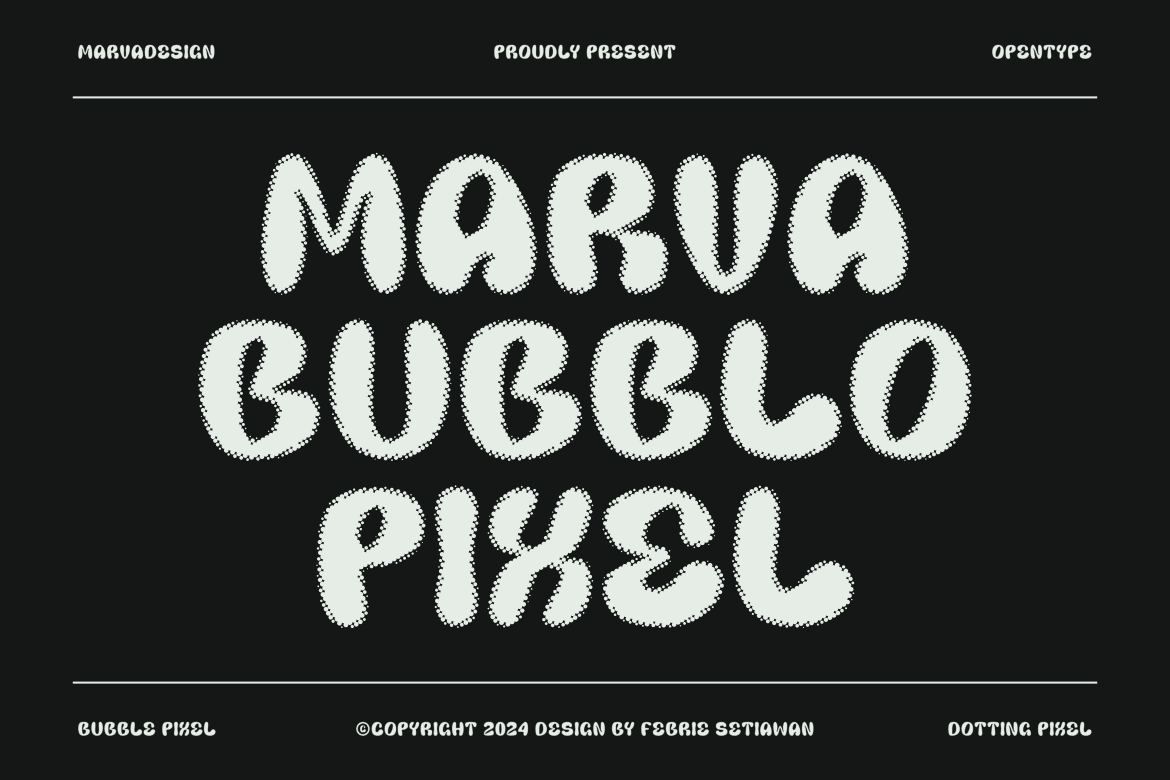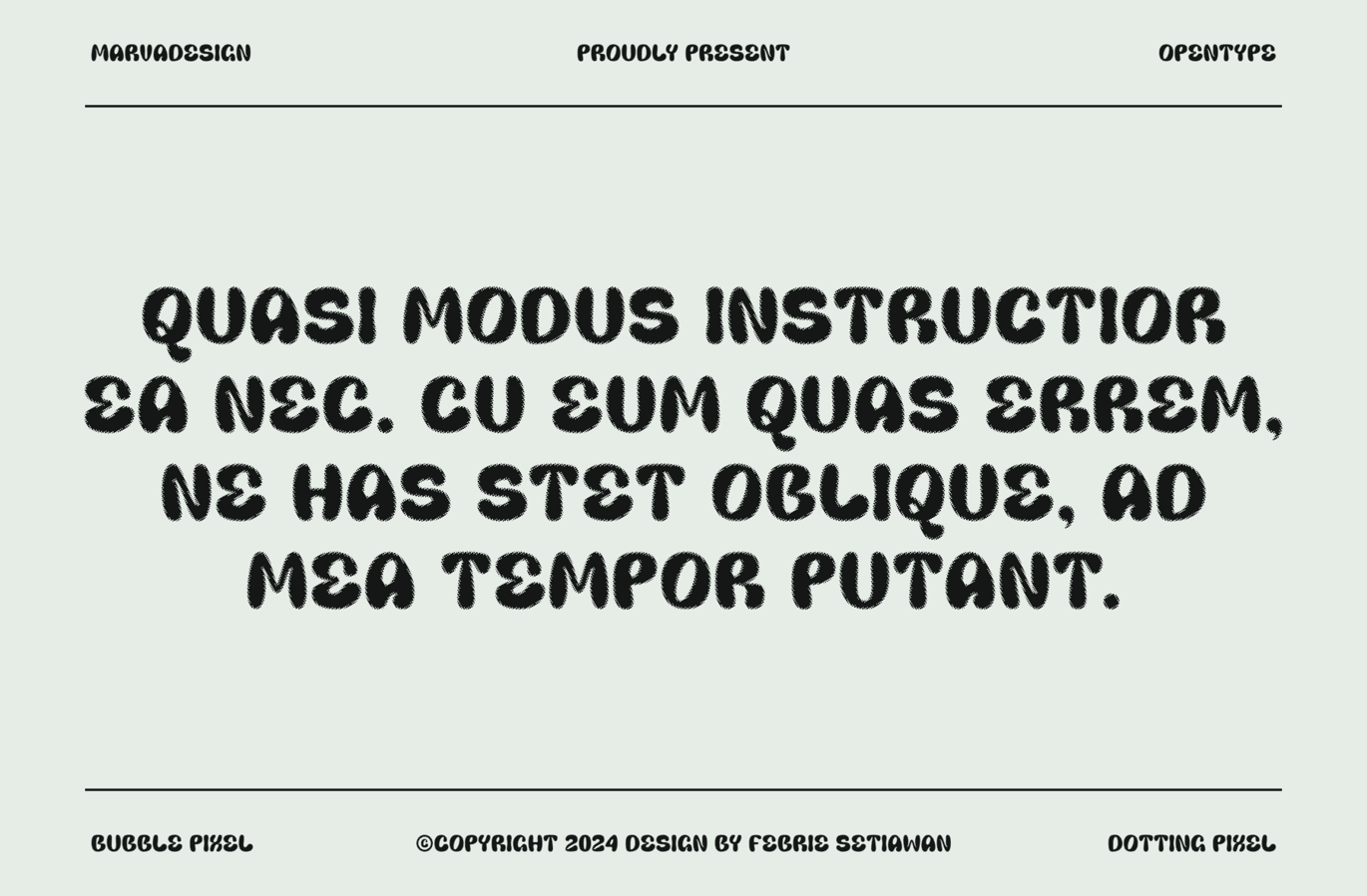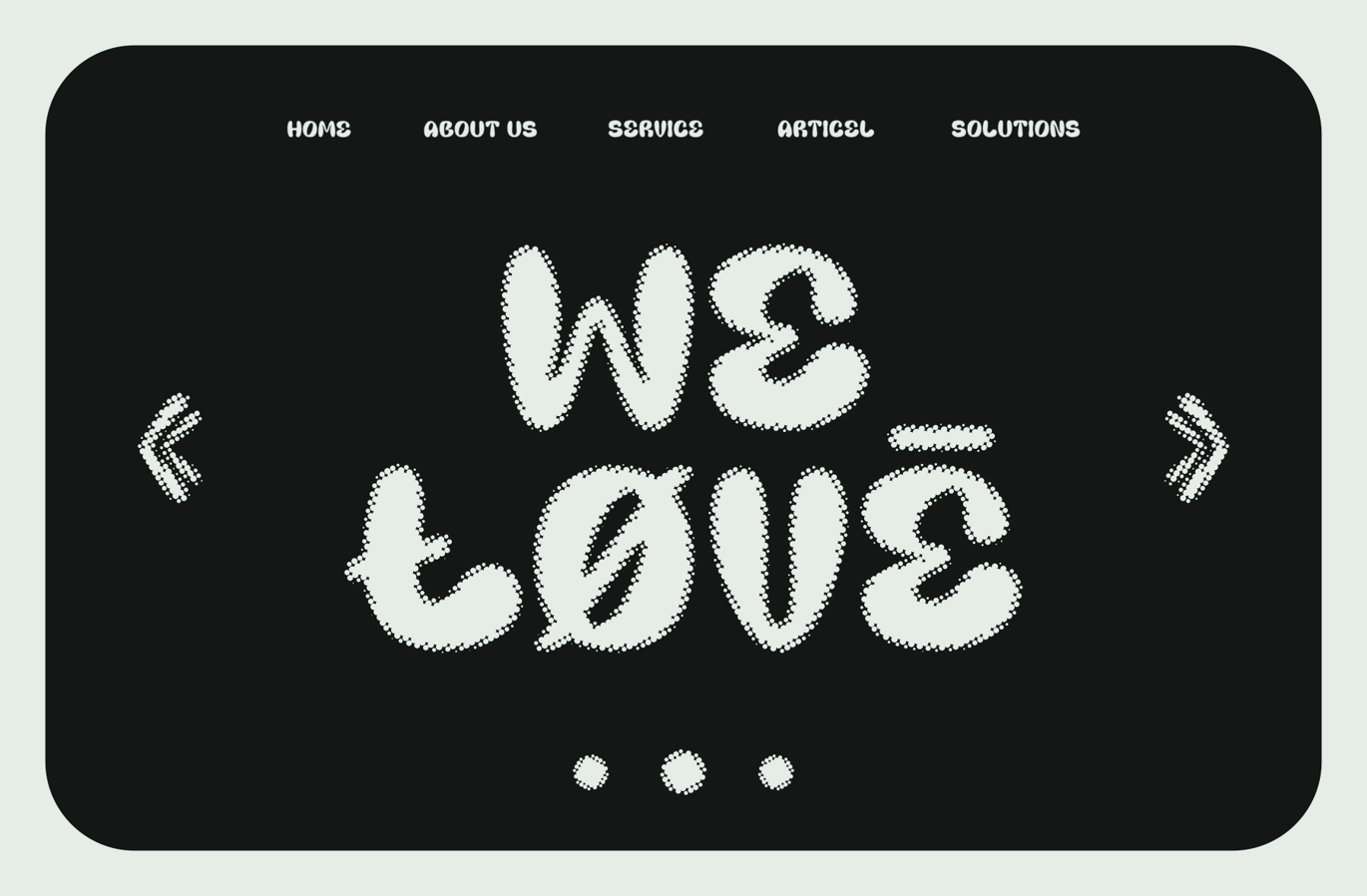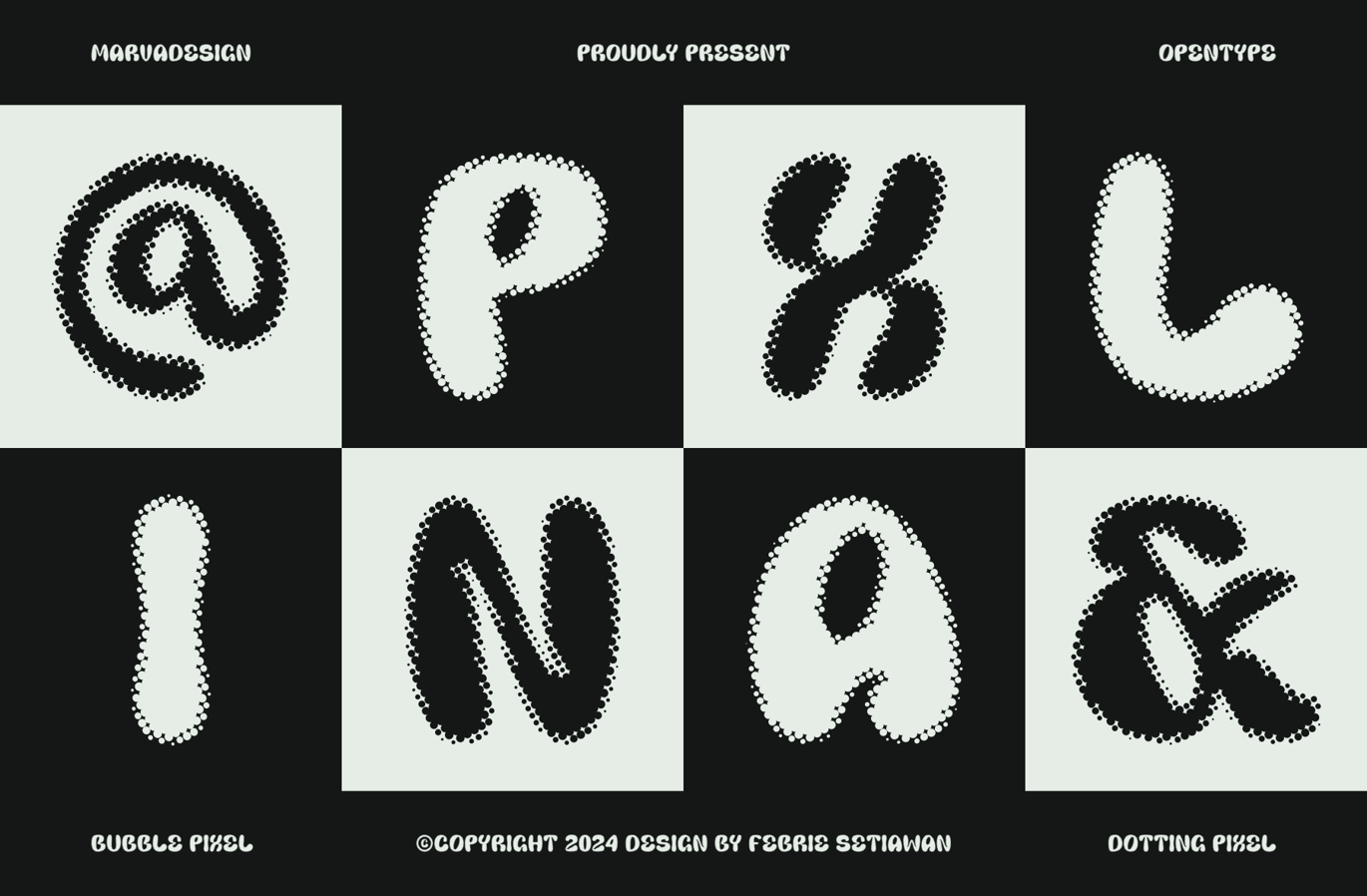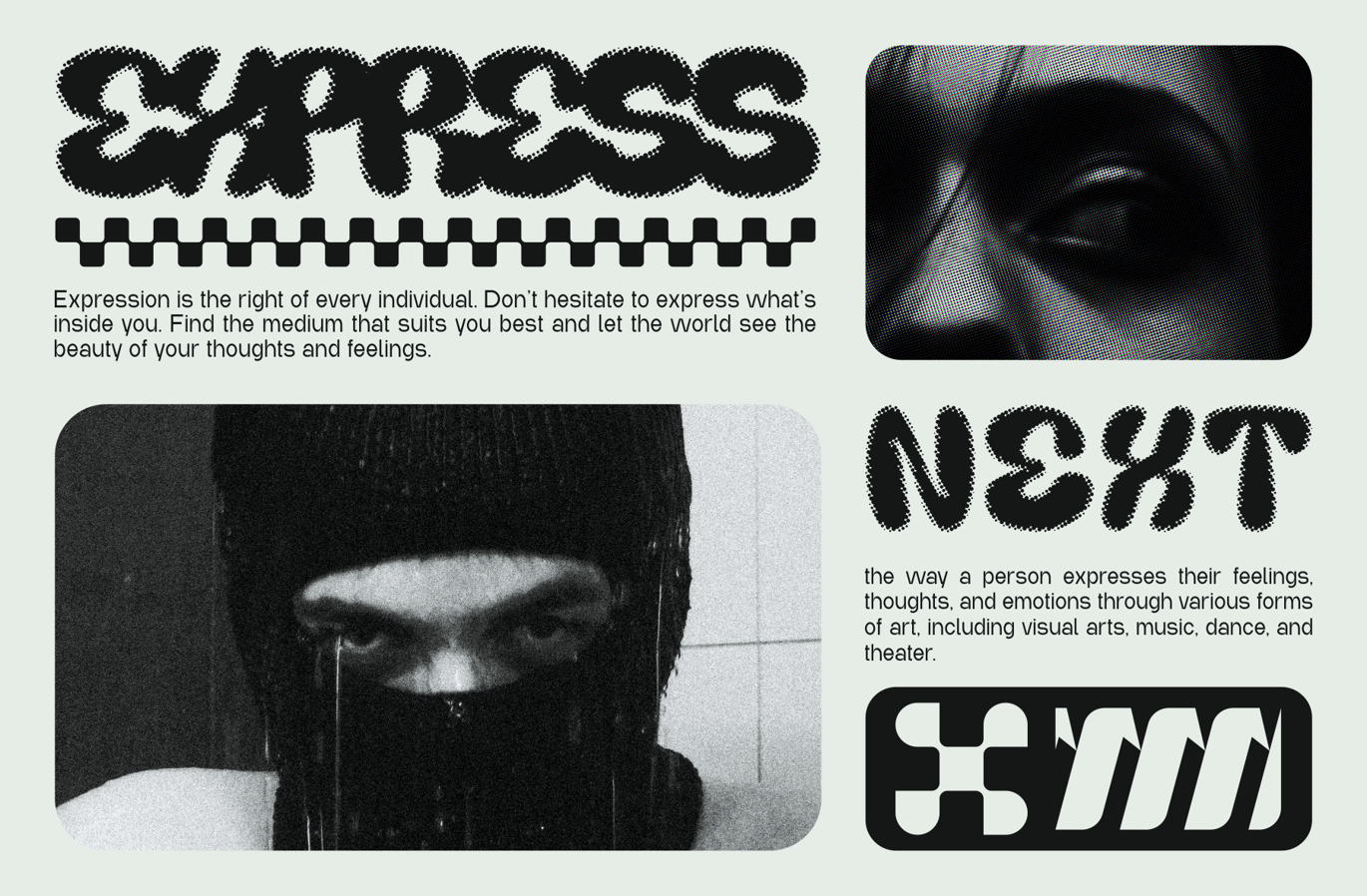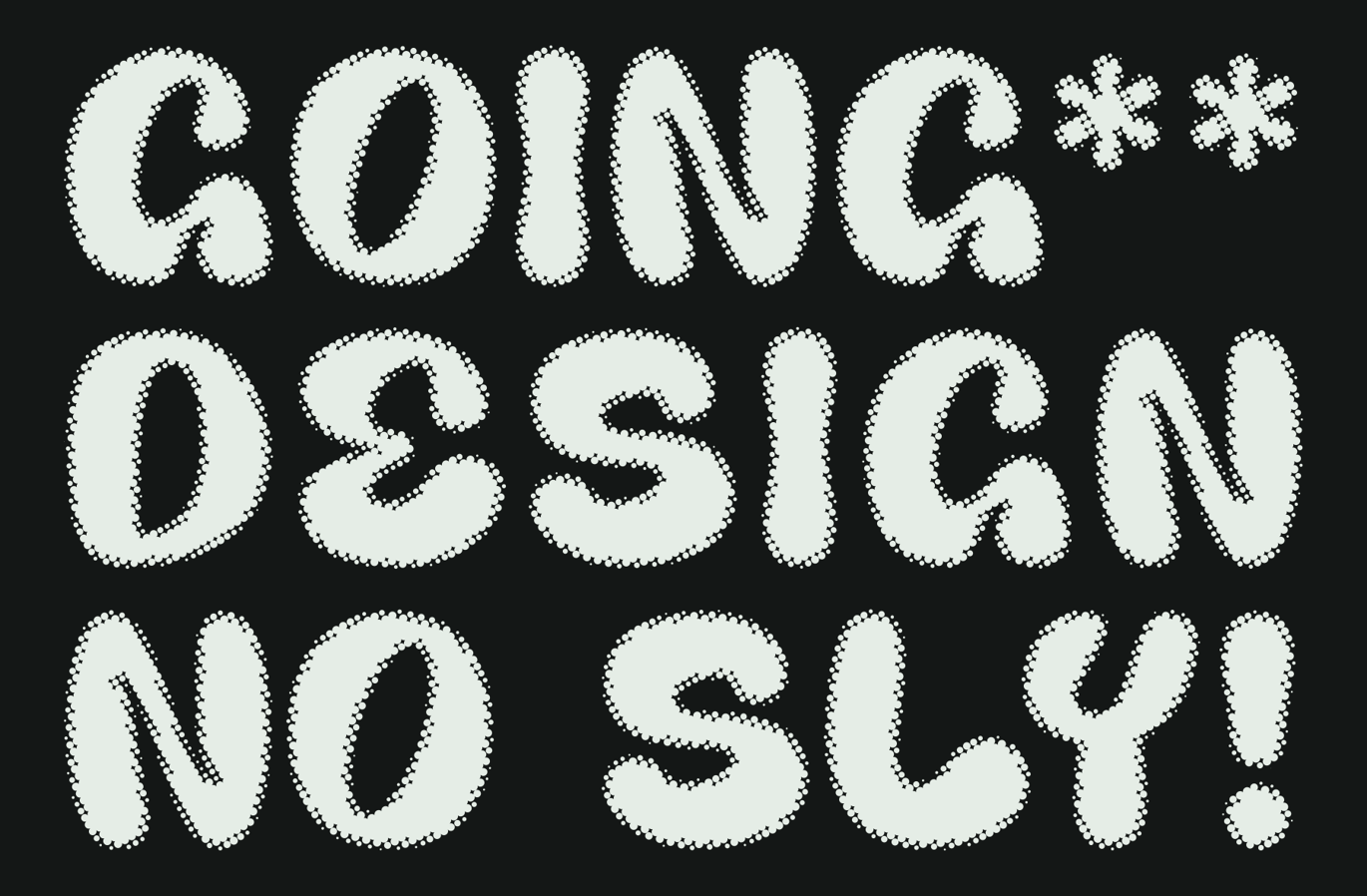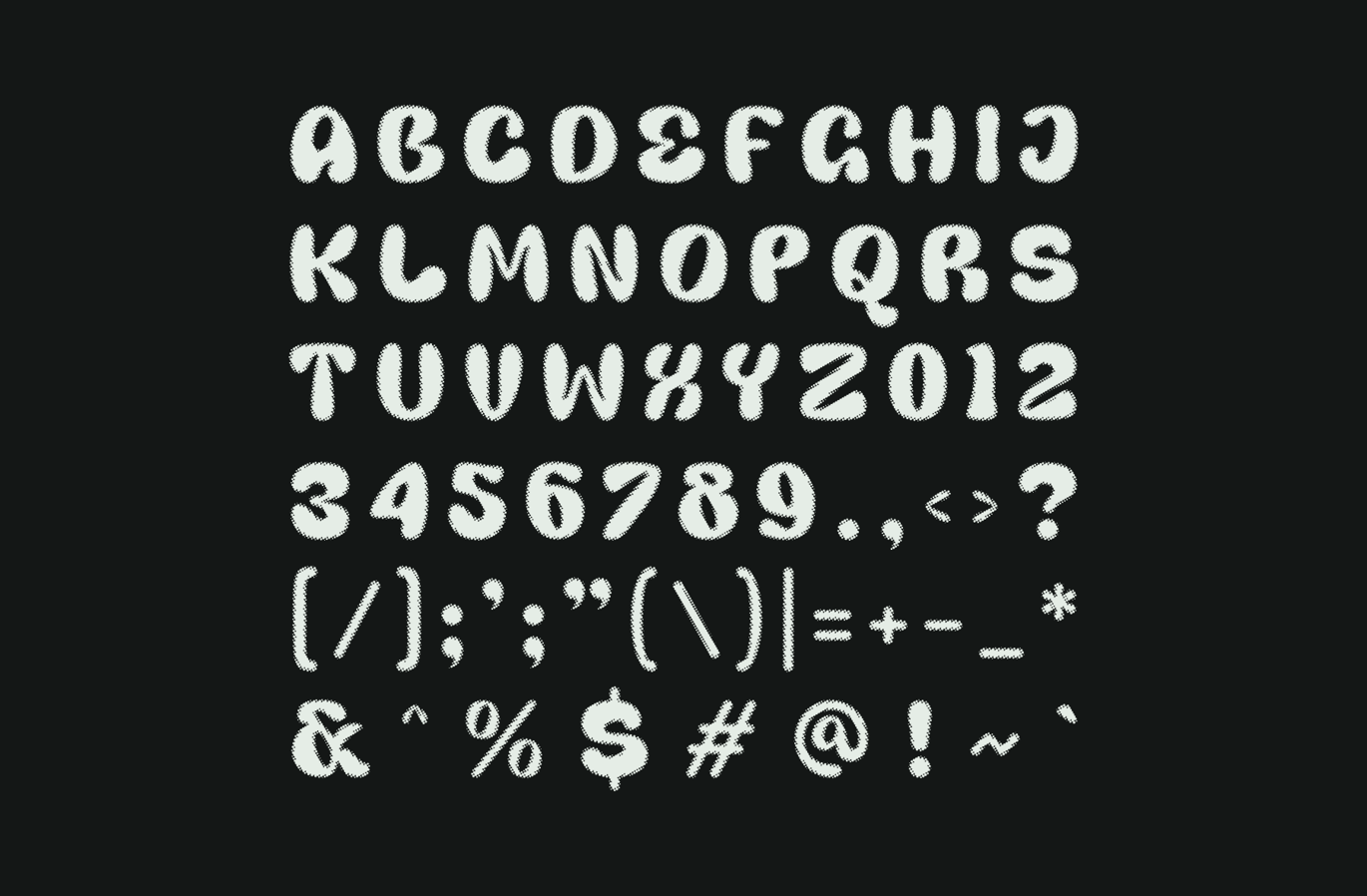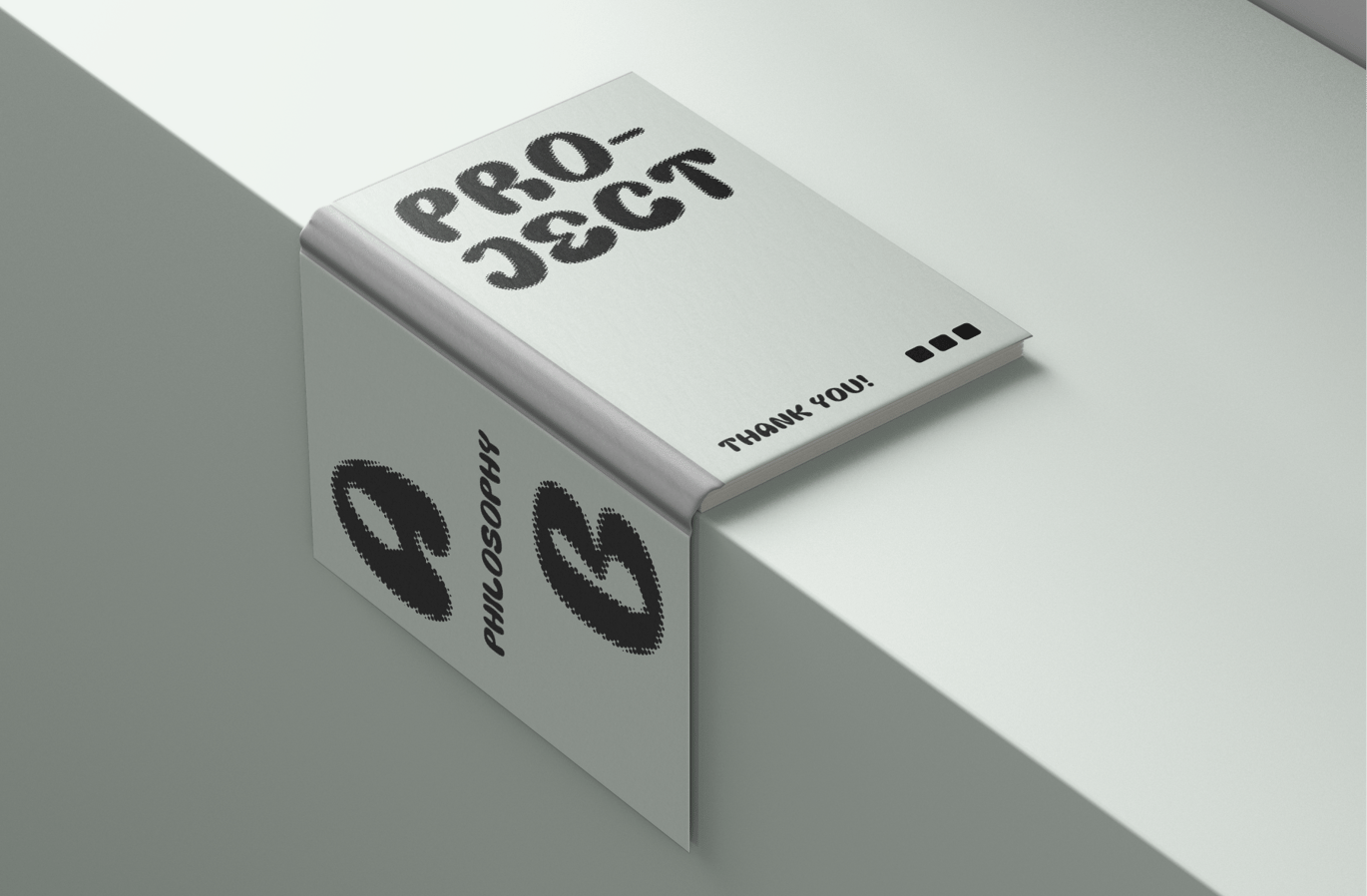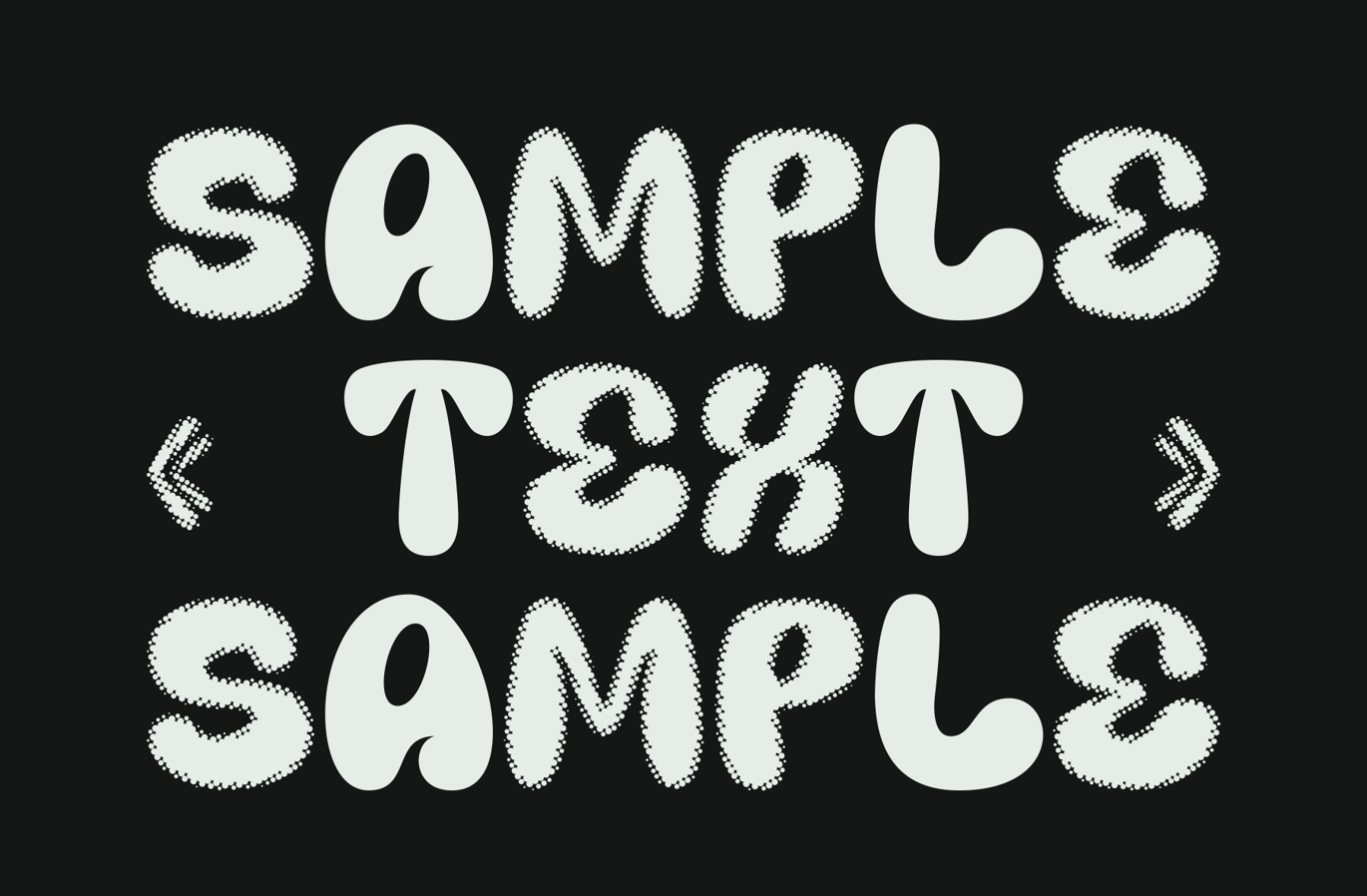
Marva Bubblo Pixel – Bubble Pixel Font
Introducing Marva Bubblo Pixel is a variant of the Marva Bubblo Groovy font family that combines a decorative style with a pixel art aesthetic. This font is designed to provide a unique and attractive look that combines decorative bubble elements with the clarity and simplicity of a pixel design.
Advantages of Marva Bubblo Pixel
*Decorative and Attractive: Combining decorative bubble elements with pixel shapes, creates an attractive and fun style.
*Versatile: Suitable for various types of creative projects, such as posters, logos, games and web design.
*Unique: Provides a retro and modern touch at the same time, making it an ideal choice for designs that want to stand out.